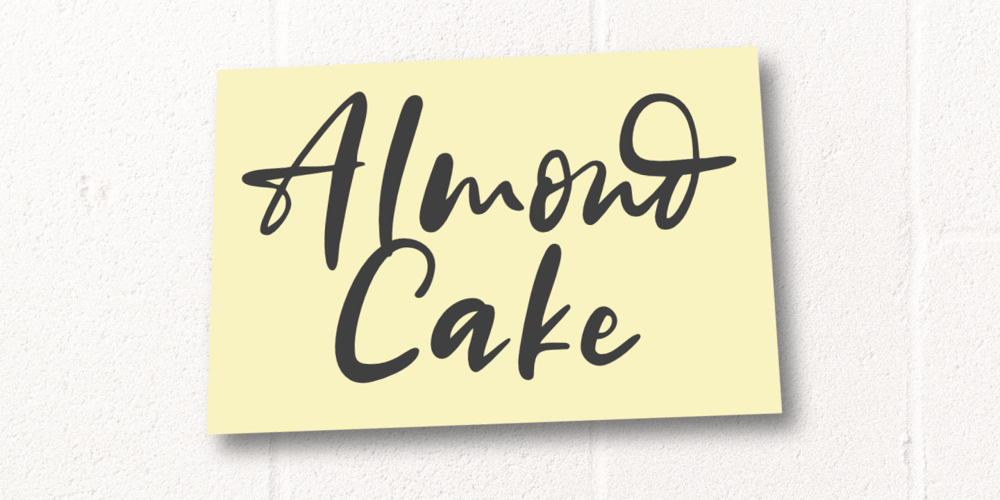
Almond Cake
Almond Cake font
Almond Cake Font Family was designed by Aldy Sidik and published by Epiclinez. Almond Cake contains 1 styles and family package options. Almond Cake is a sweet and stylish handwritten font. Its natural and unique style makes it incredibly fitting for a large pool of designs. The only limit is your imagination!